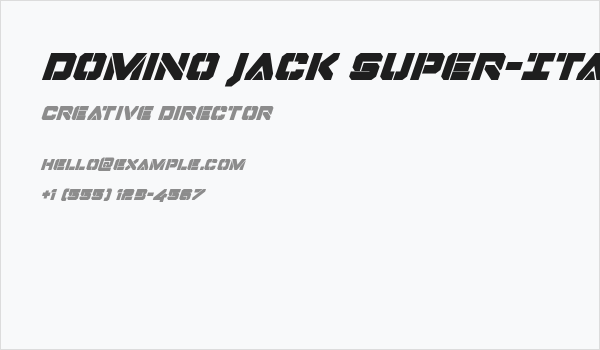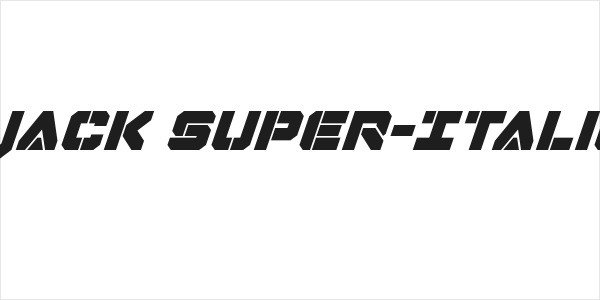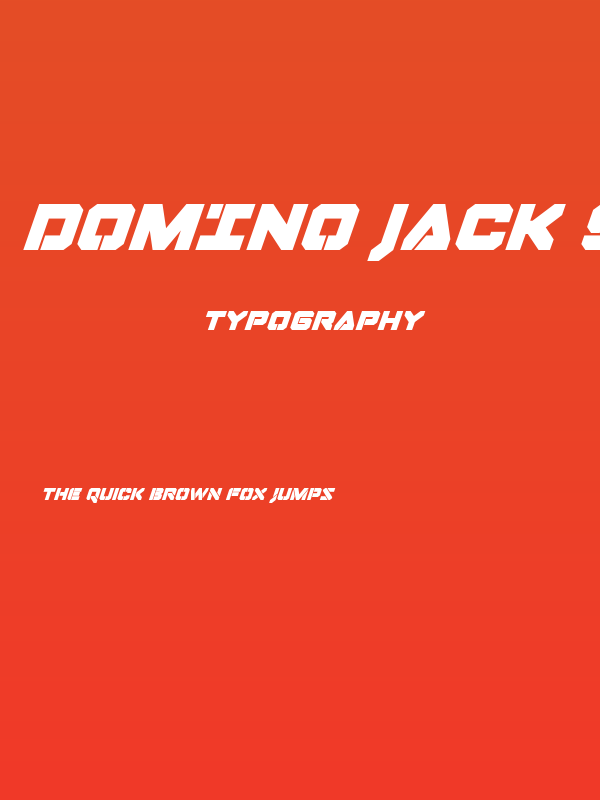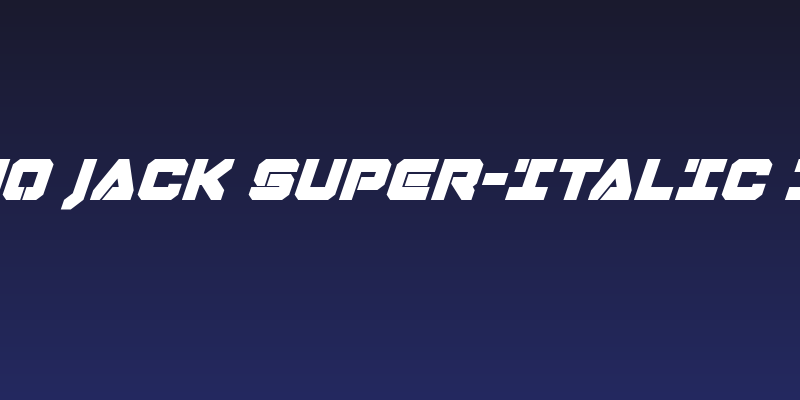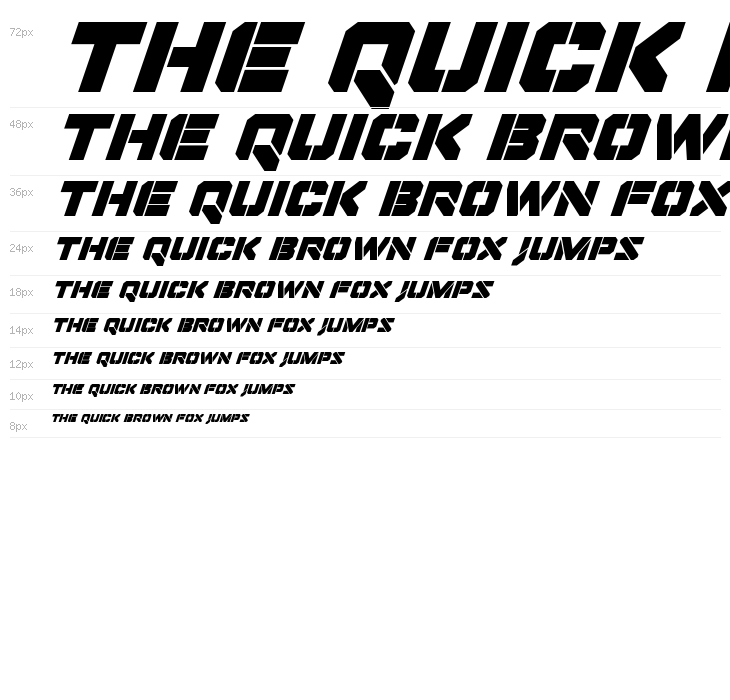
Domino Jack Super-Italic Italic Font
Domino Jack Super-Italic Italic Description
This font features a bold and dynamic style with a strong italic slant, giving it a sense of motion and energy. The characters are blocky and geometric, with sharp angles and a consistent stroke width that adds to its robust appearance. The uppercase and lowercase letters maintain a uniform height, enhancing readability while preserving the font's unique character. Numbers and special characters are designed with the same boldness and angularity, ensuring a cohesive look across all elements. This font's distinctive style makes it ideal for projects that require a modern and impactful visual presence.
| Proposed Projects | Ideal for sports branding, dynamic posters, video game titles, and modern advertising campaigns. |